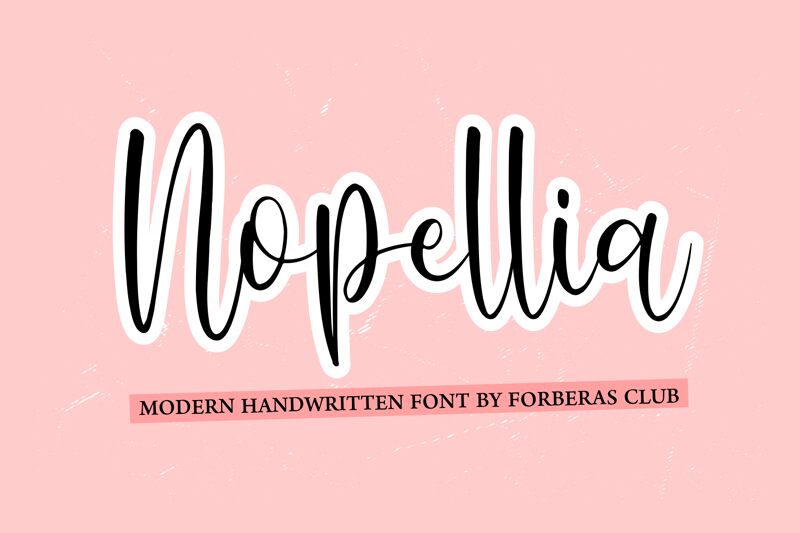
Nopellia
Nopellia font by Forberas Club is an elegant light handwritten typeface with a wonderfully playful and dynamic design. It features natural fluidity in an expressive style that proudly celebrates modern script typography elements. This font carries a casual vibe and wavy demeanor that have been combined to produce an attractive lettering appearance.
Application ideas include branding, packaging design, apparel, magazines, templates, invitations, stationery items, cosmetic labels, cosmetics packaging labels logos, icons social media marketing materials websites widgets vintage advertisements books posters signage free font games dashboards page titles.